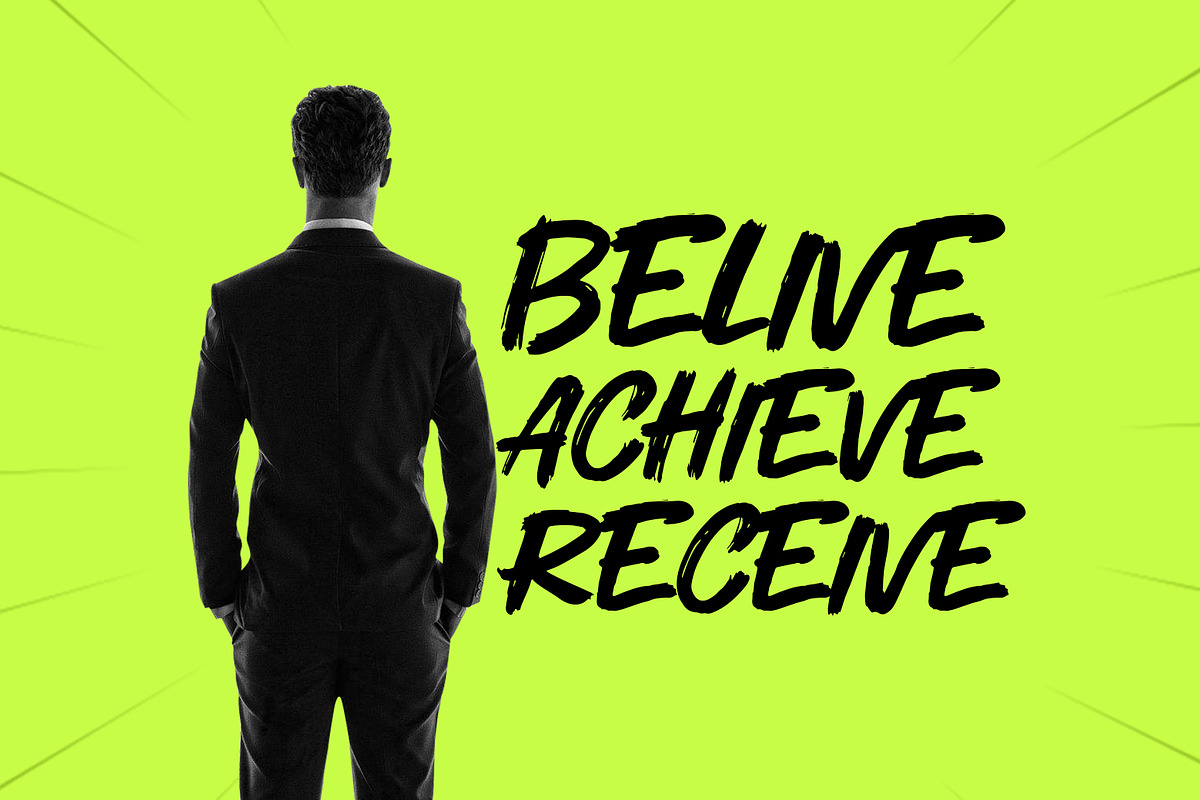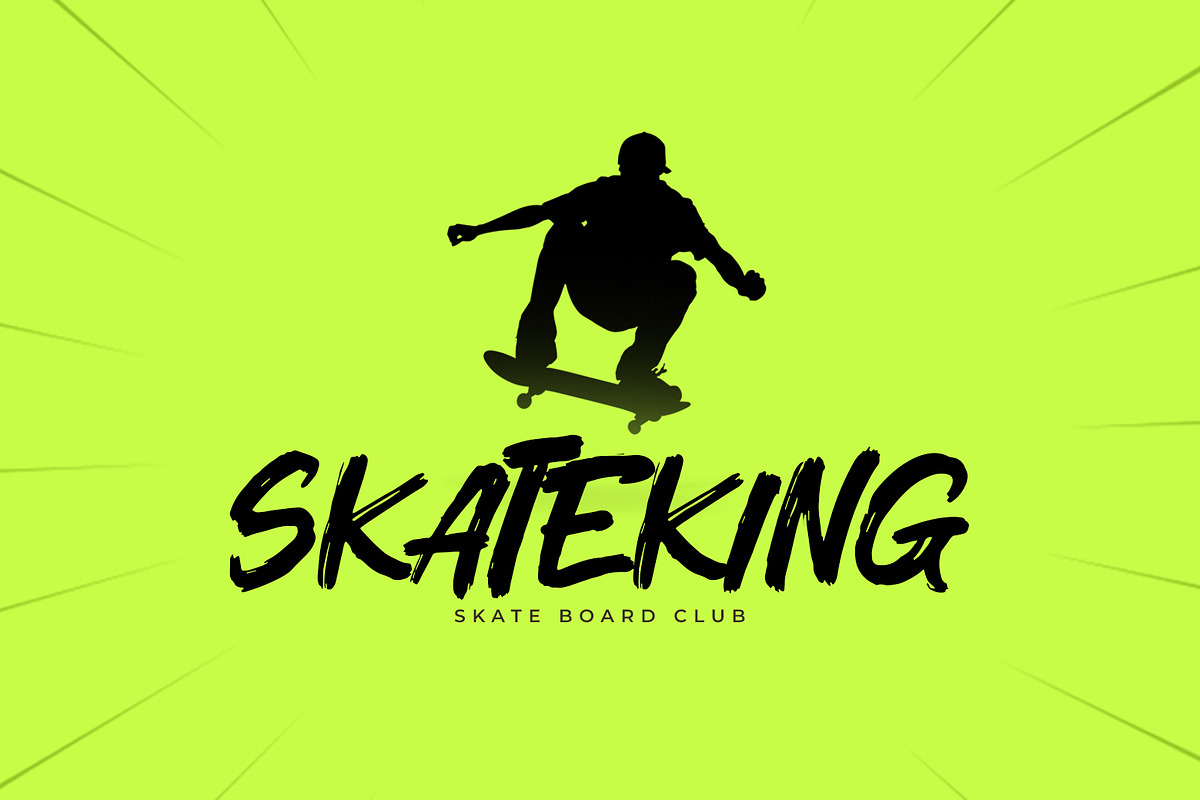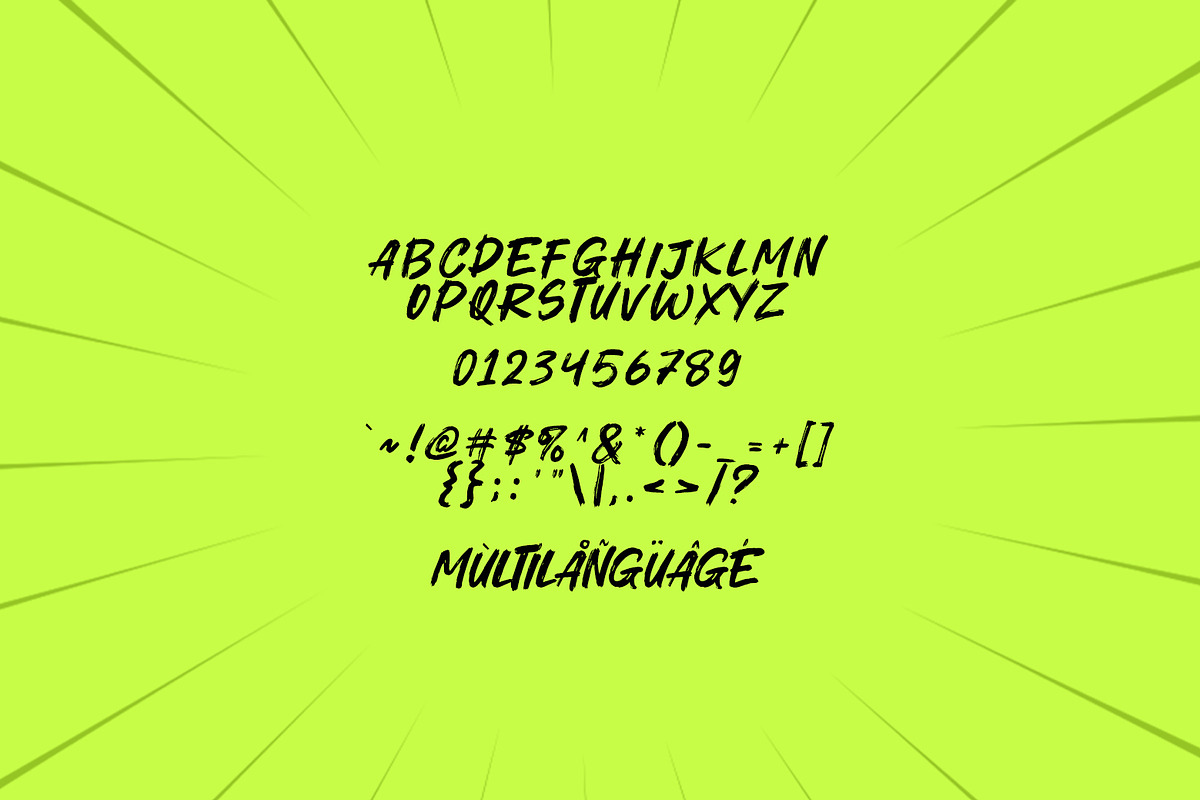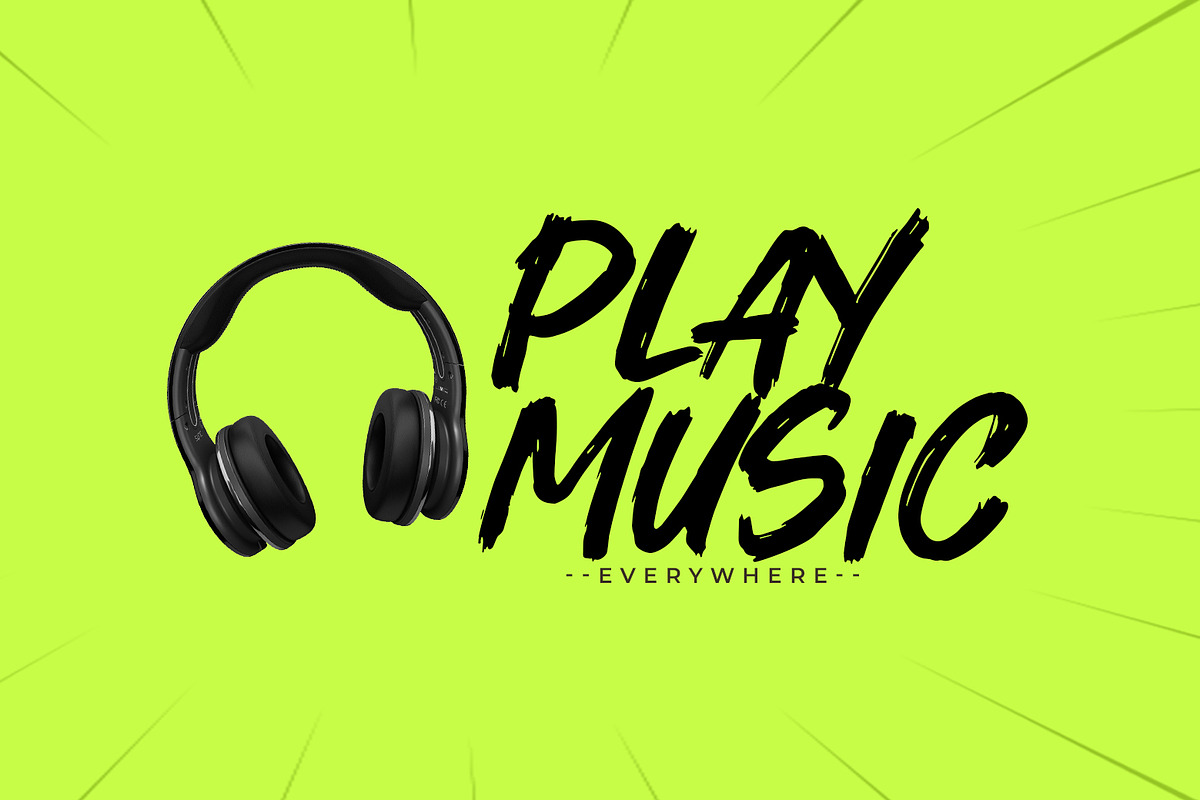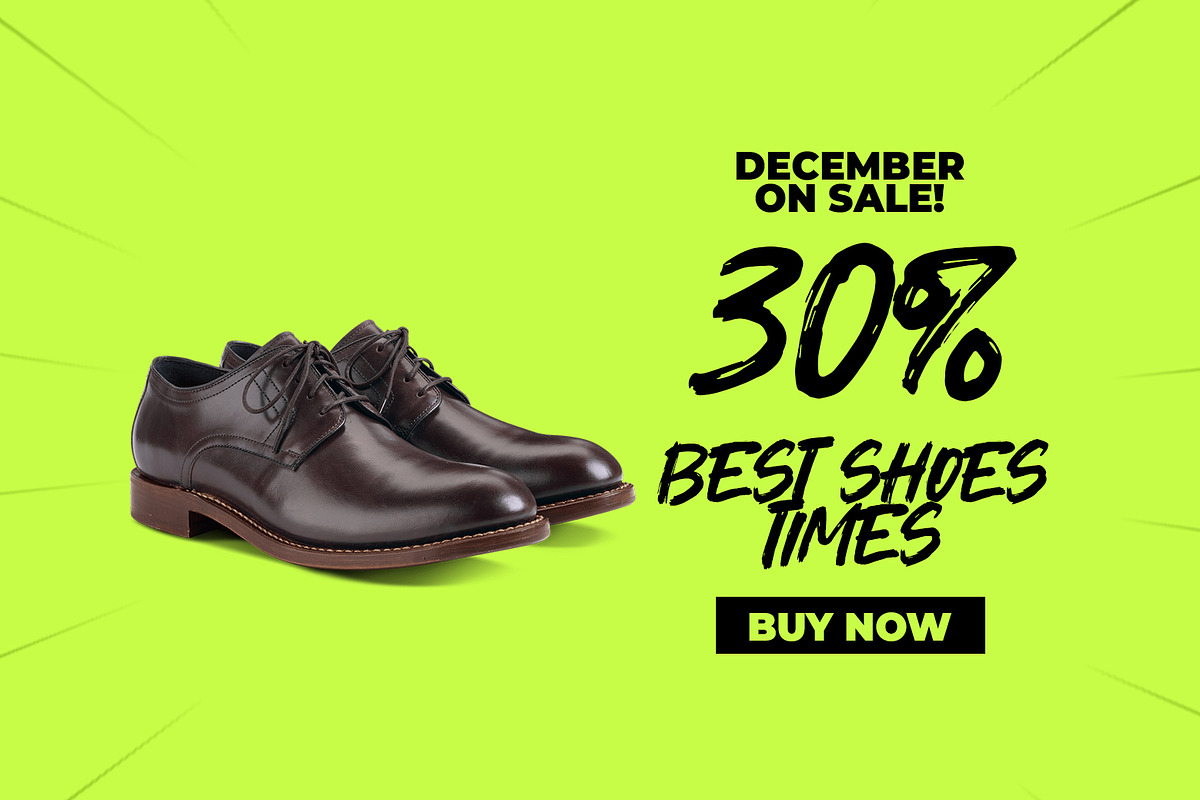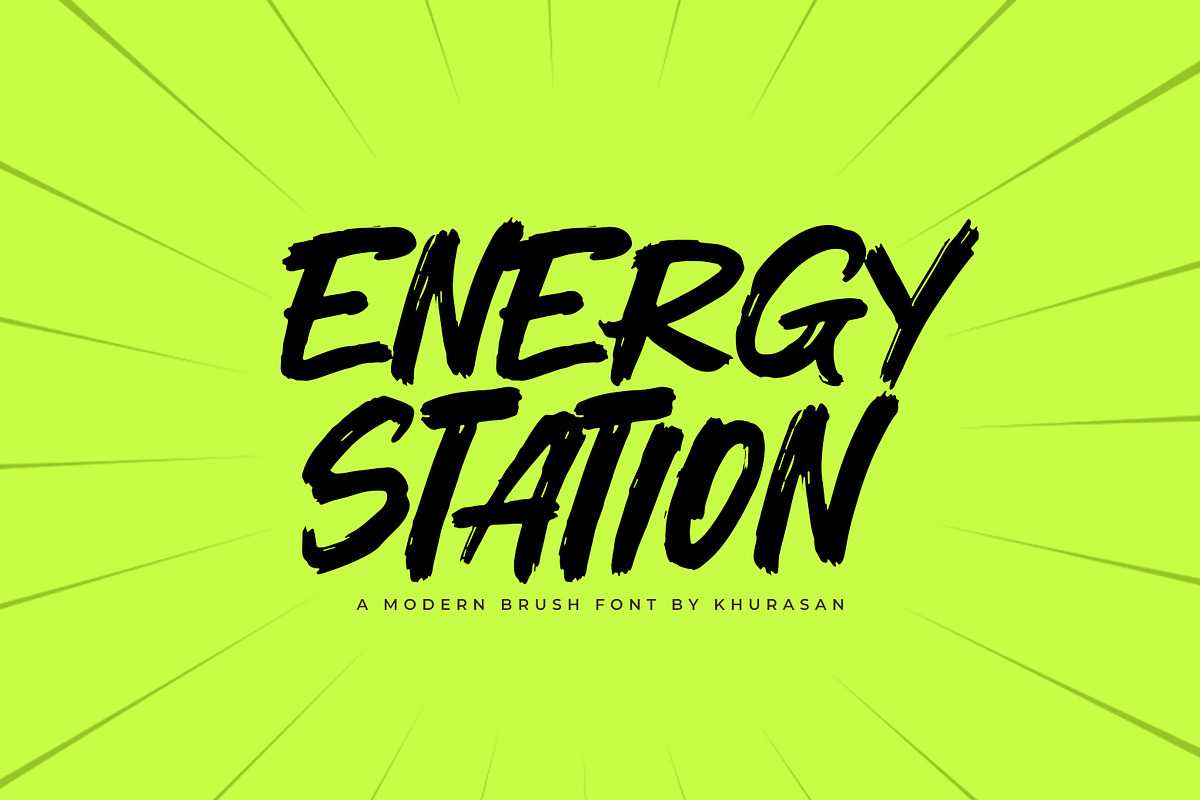
Energy Station
Energy Station is a modern brush font. Energy Station font suitable for logo, branding, greeting card, poster and any design that you create…!
Khurasan